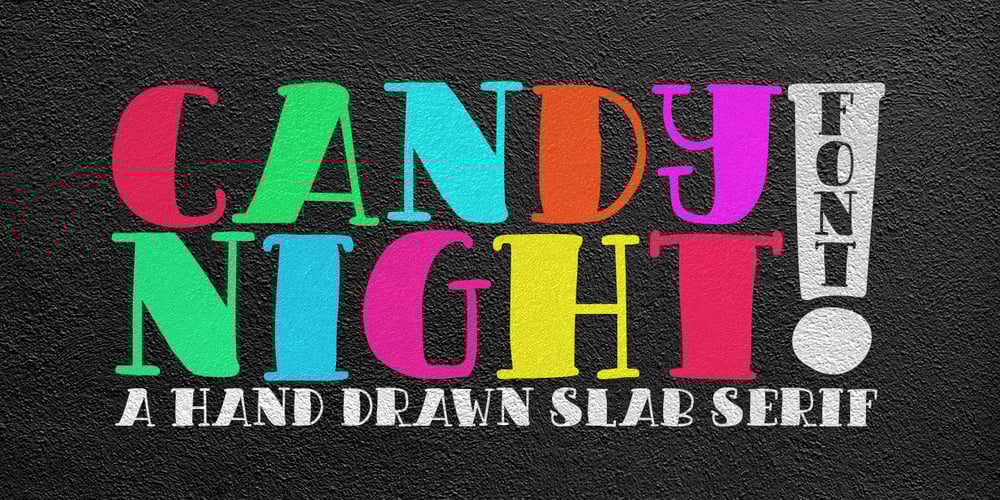
Candy Night Font Family was designed by Juni Fadil Putra and published by FadeLine Studio. Candy Night contains 1 styles and family package options. Introducing CANDY NIGHT! A Hand Drawn slab serif font! Made by hand to provide a natural, unique and modern style. This font is carefully designed to maintain the balance of each letter. Very easy and convenient to use.